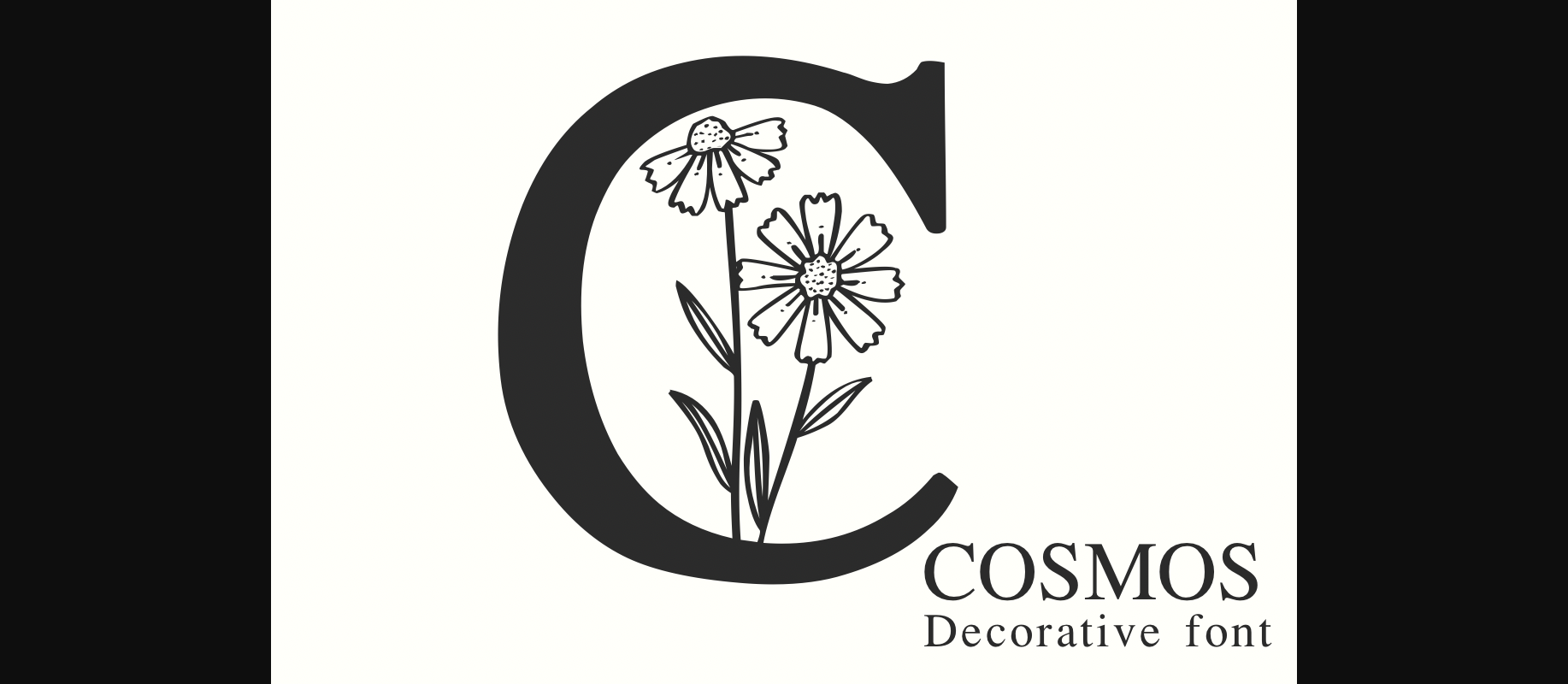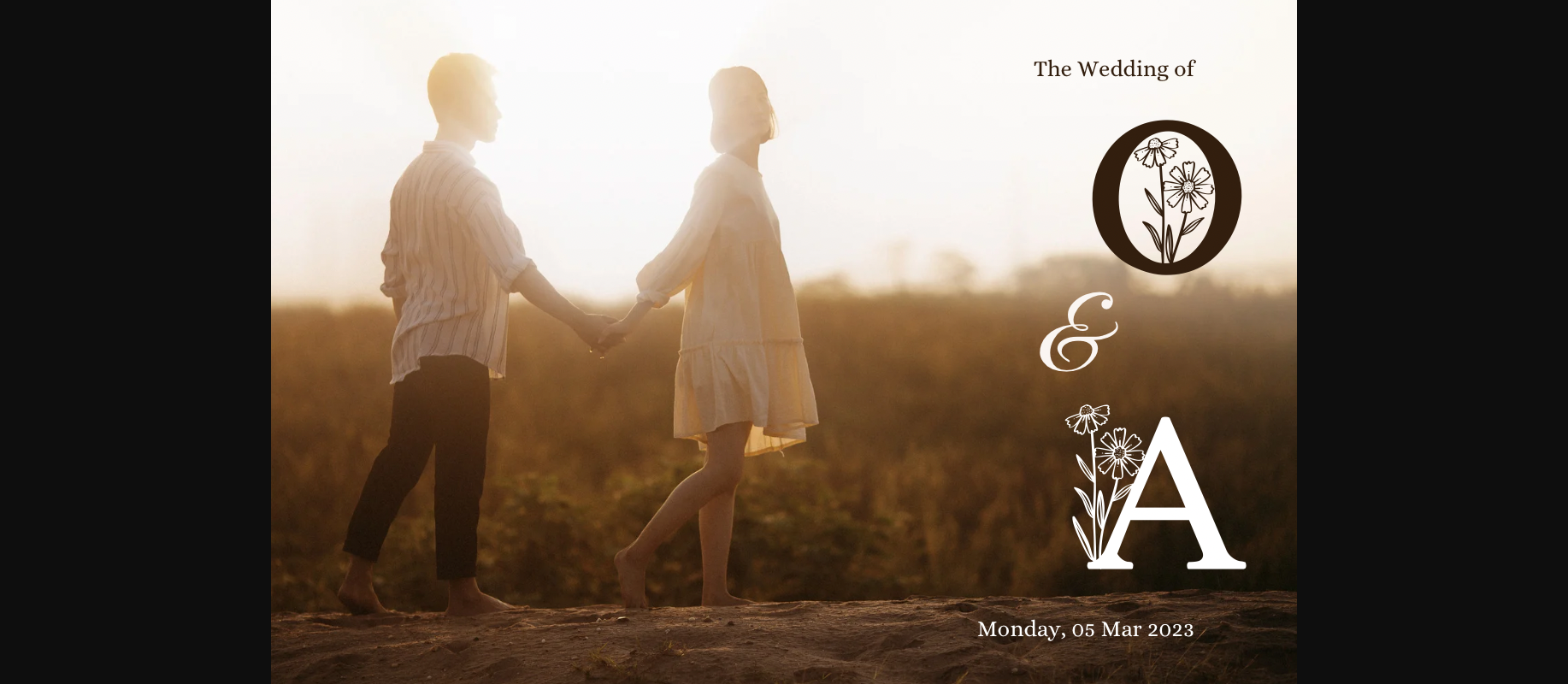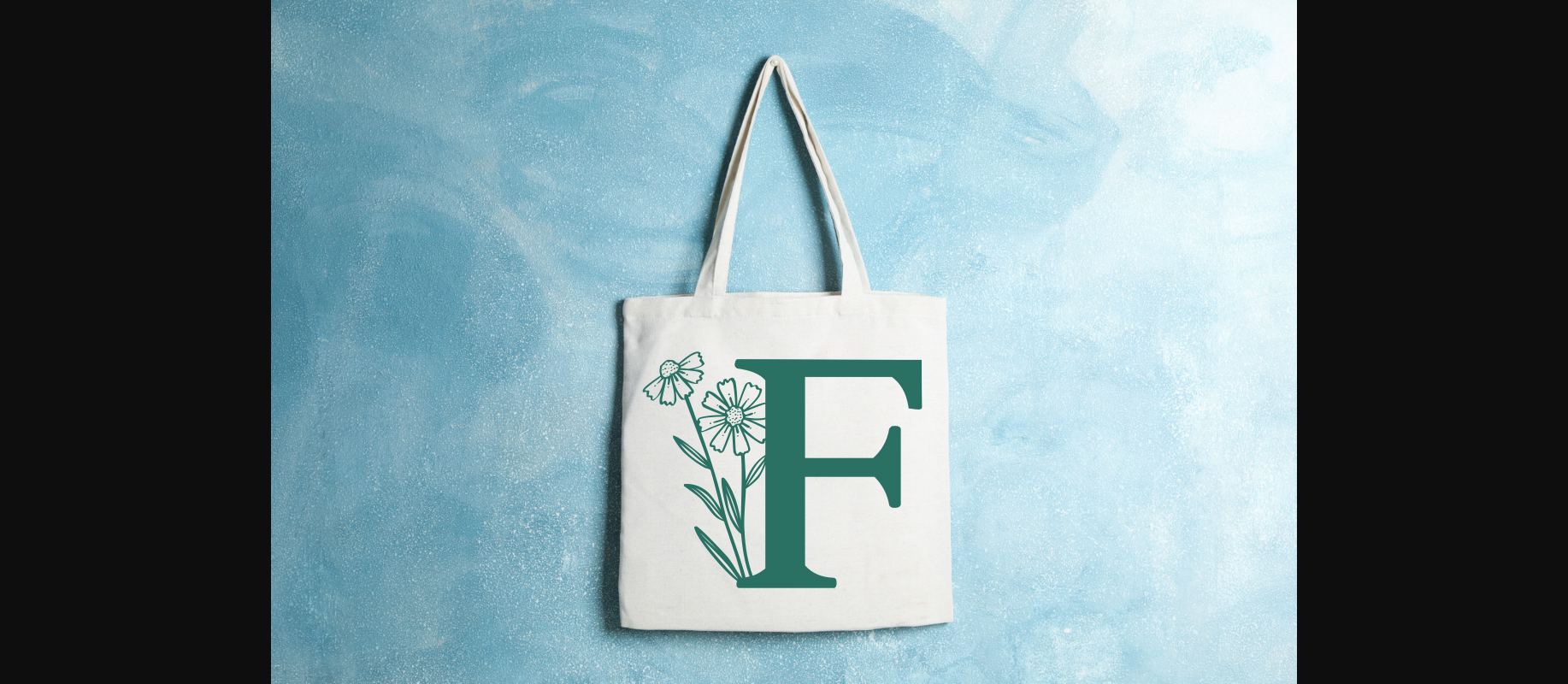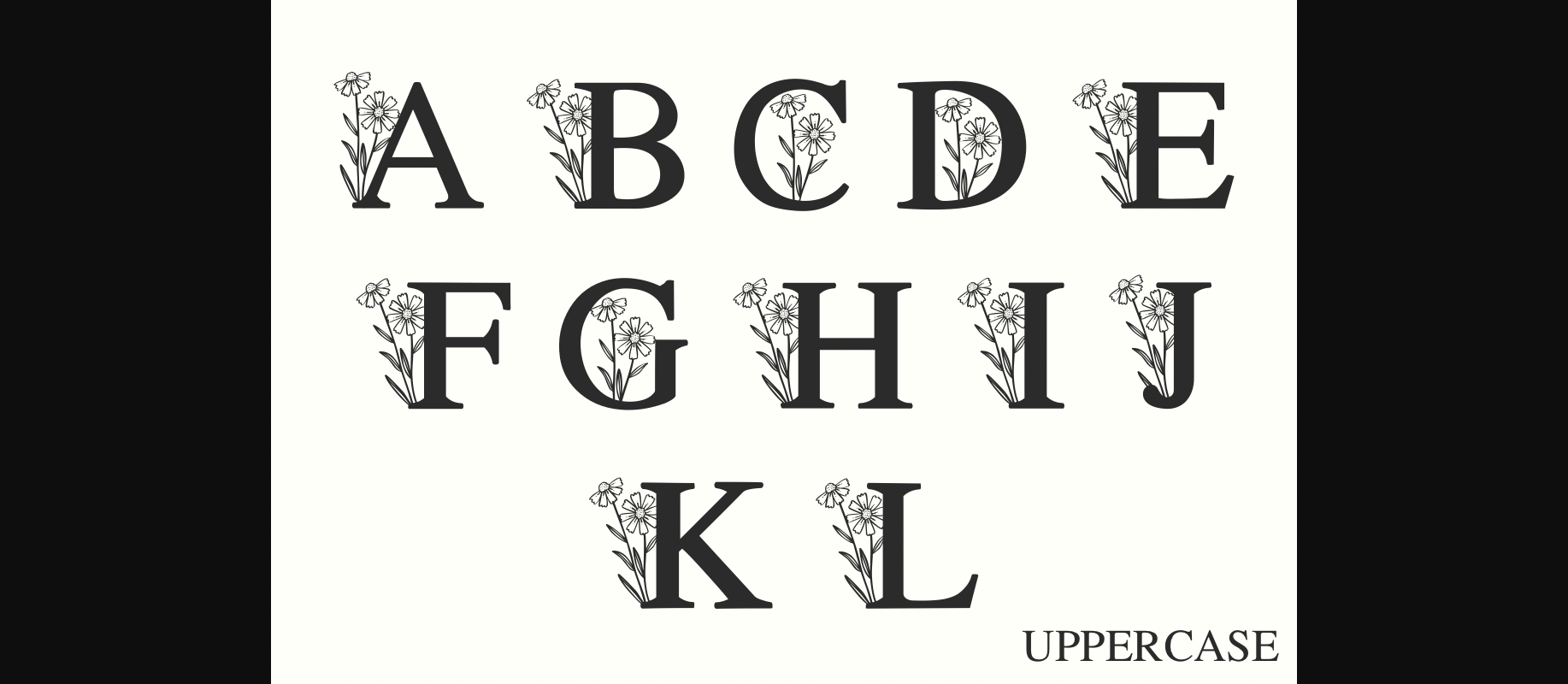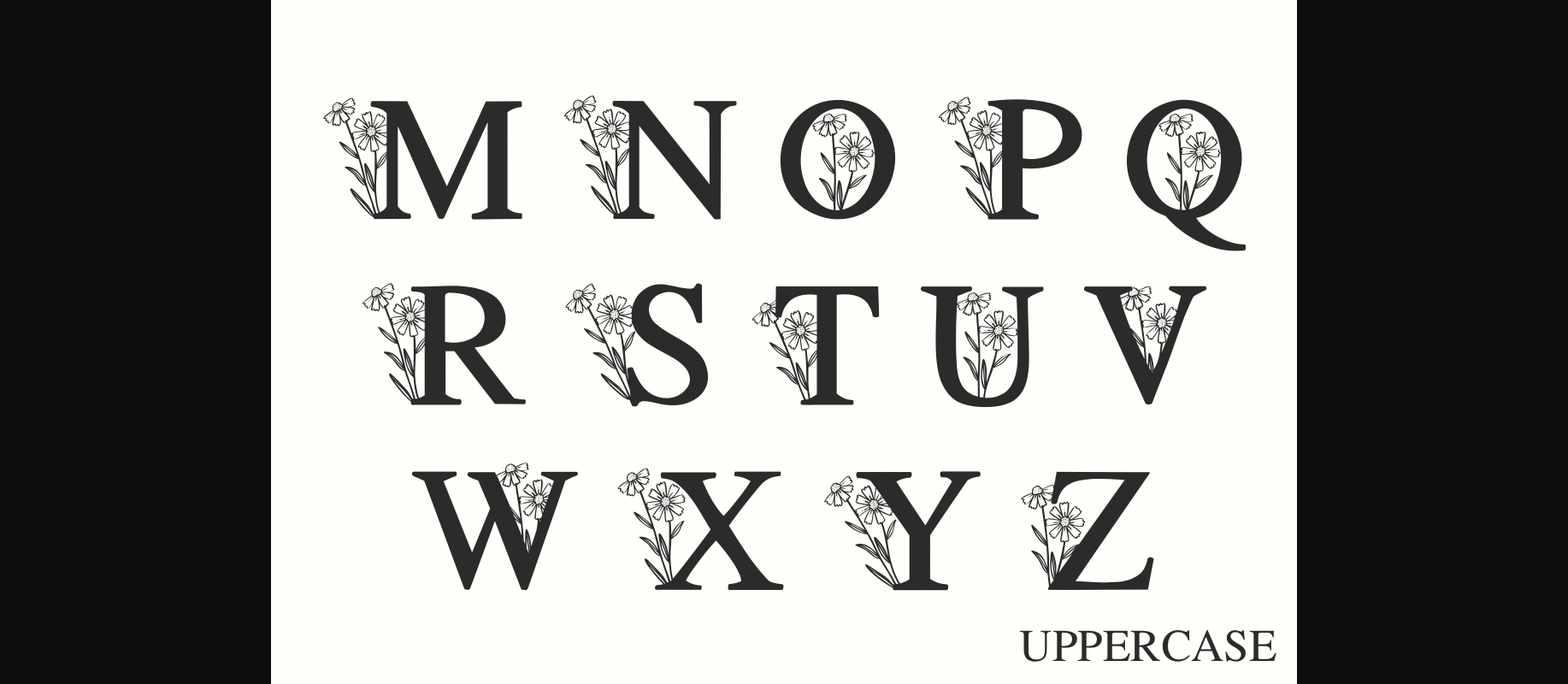
About Cosmos Font
Cosmos is a decorative font with floral elements. You can use it for taking notes, writing a diary or making greeting cards. However you can still use it for other designs such as banners content mugs cards shirts stationery social media posts and more!